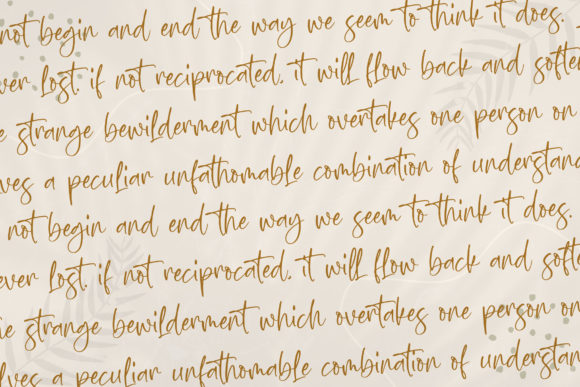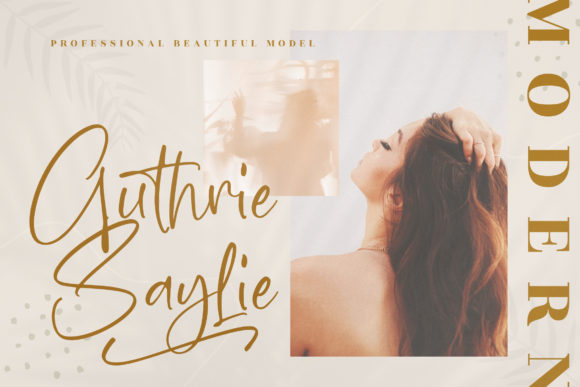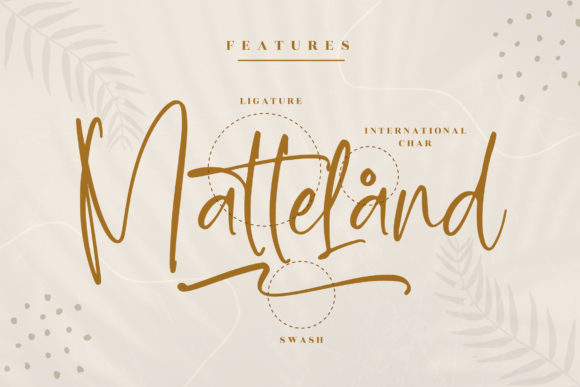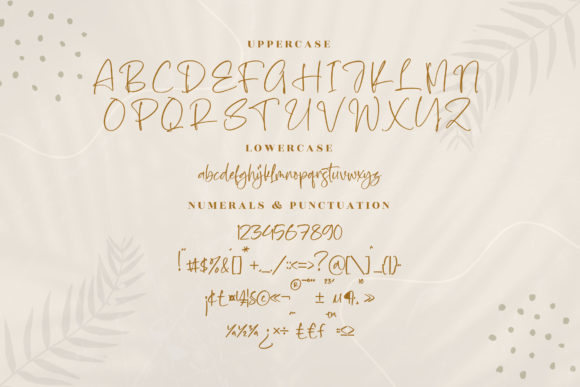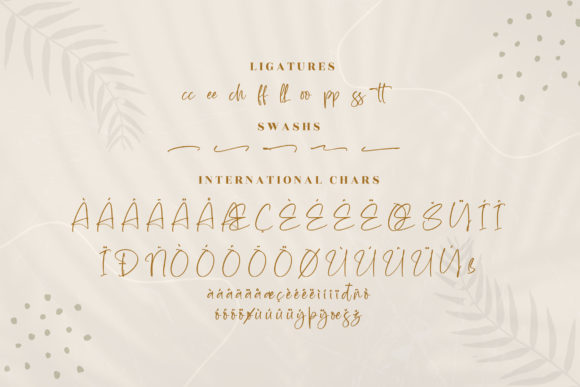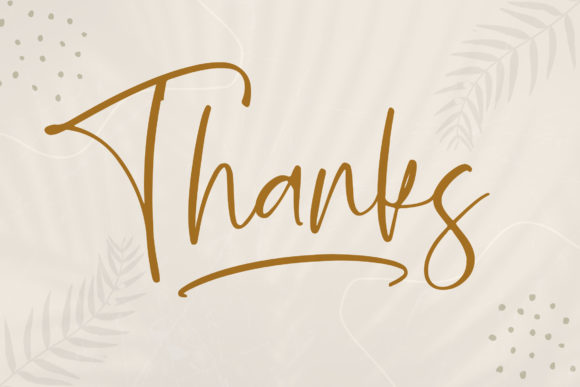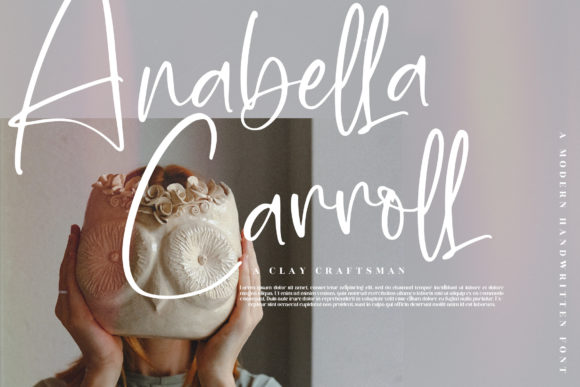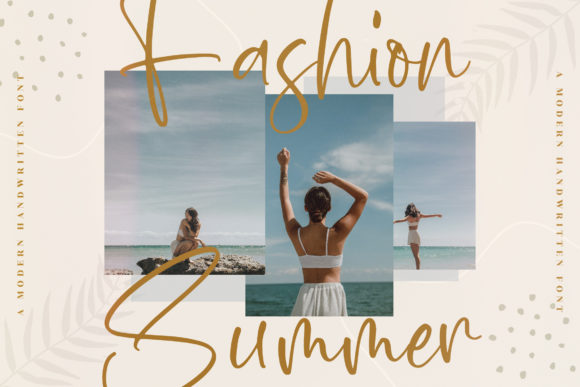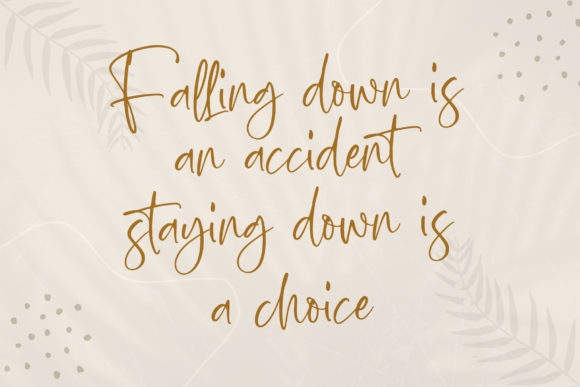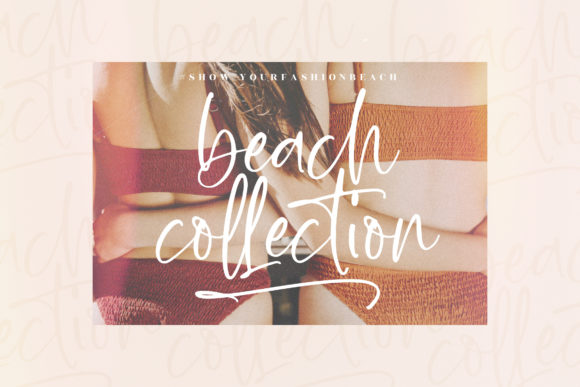
Gabriella Font
About Gabriella Font
Gabriella is a relaxed and stylish script font. It is PUA encoded, which means that you can access all of the glyphs and swashes with ease!